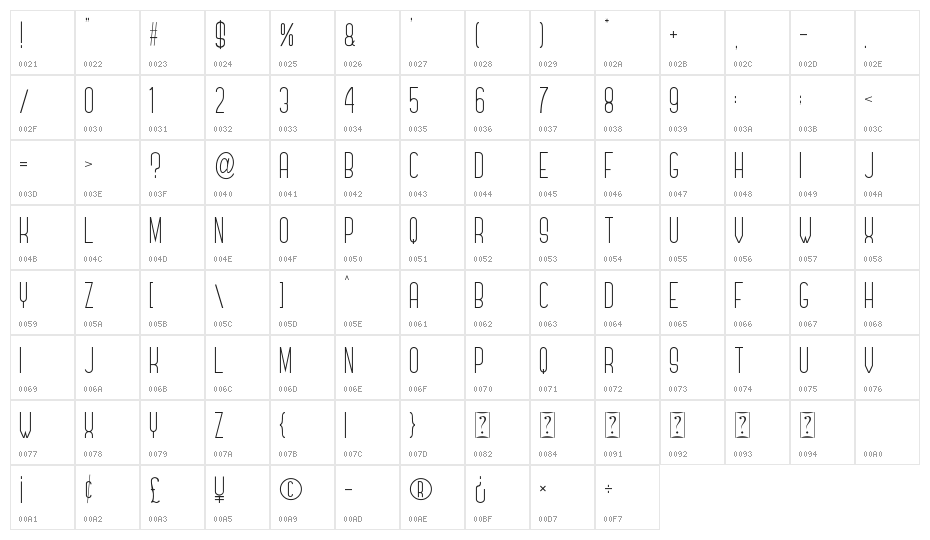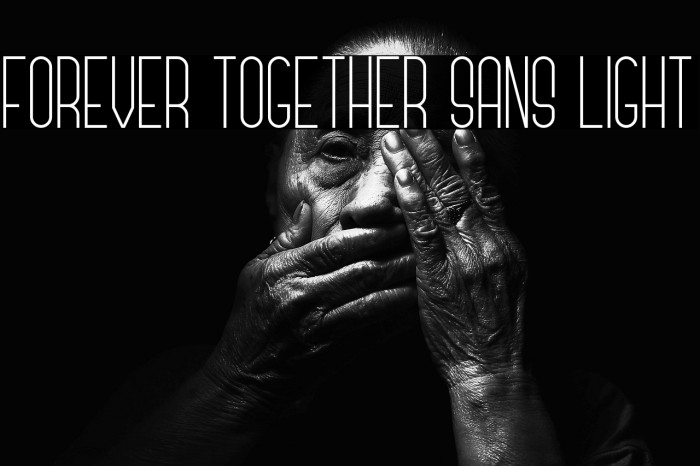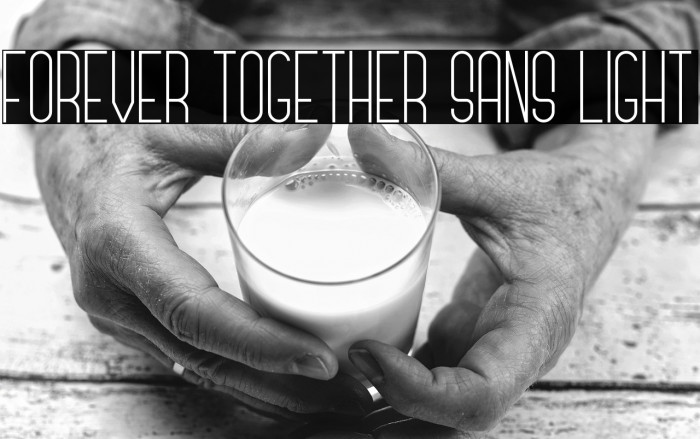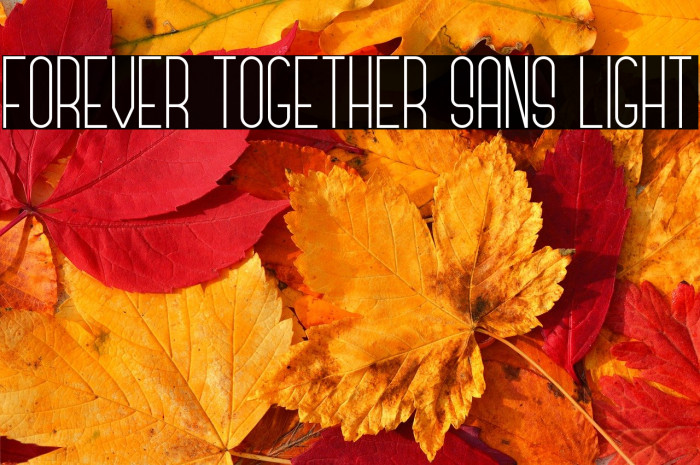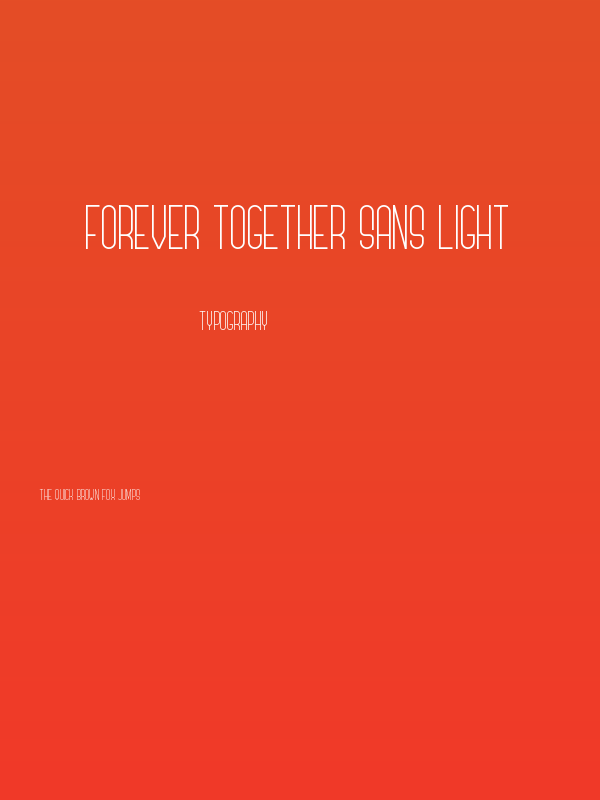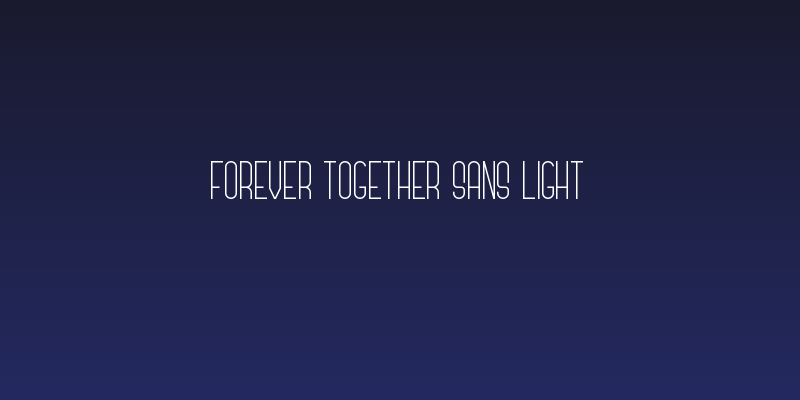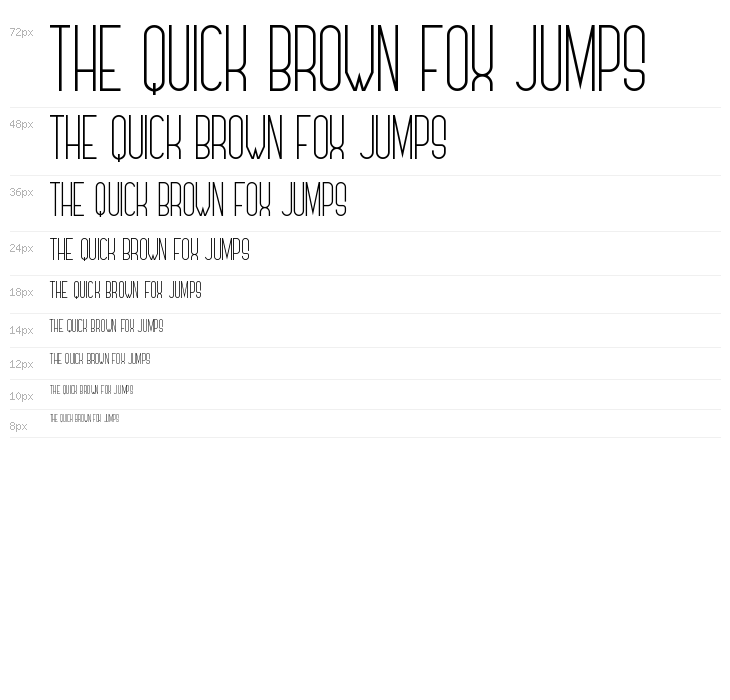
Forever Together Sans Light Font
Forever Together Sans Light Description
This font features a sleek and modern design with elongated, narrow characters that convey a sense of elegance and sophistication. The uppercase and lowercase letters maintain a consistent height, contributing to a uniform appearance. The numerals are distinct and easy to read, while the special characters are designed with a minimalist approach. The overall style is clean and contemporary, making it suitable for a variety of design applications. The font's thin strokes and high contrast give it a refined look, perfect for projects that require a touch of class and modernity.